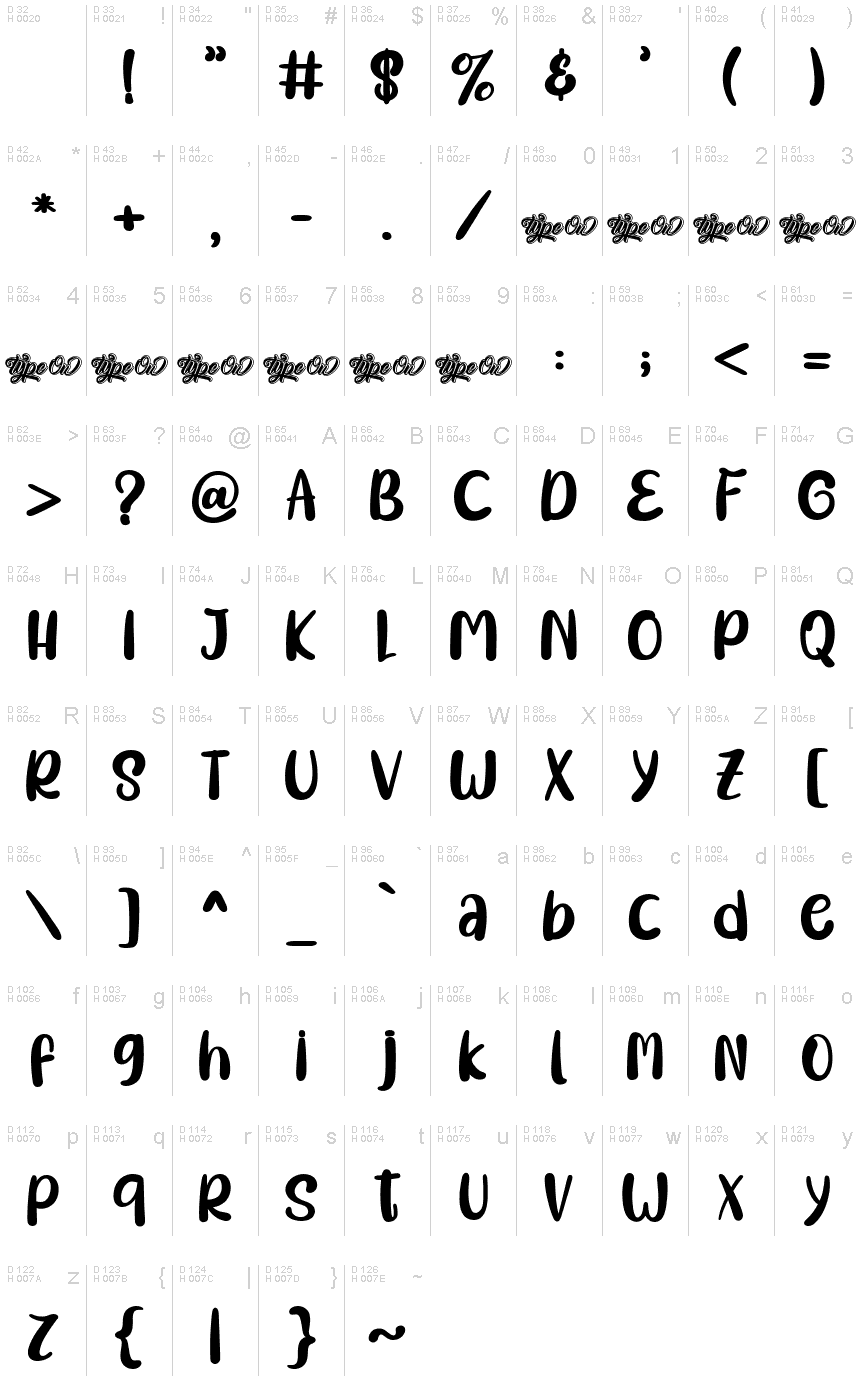
Big Ten Regular
Big Ten by Type on Studio is a bold, cartoon-style display font perfect for creating eye-catching designs. Its unique style makes it suitable for projects such as logos, posters, t-shirts and other creative projects.
Big Ten